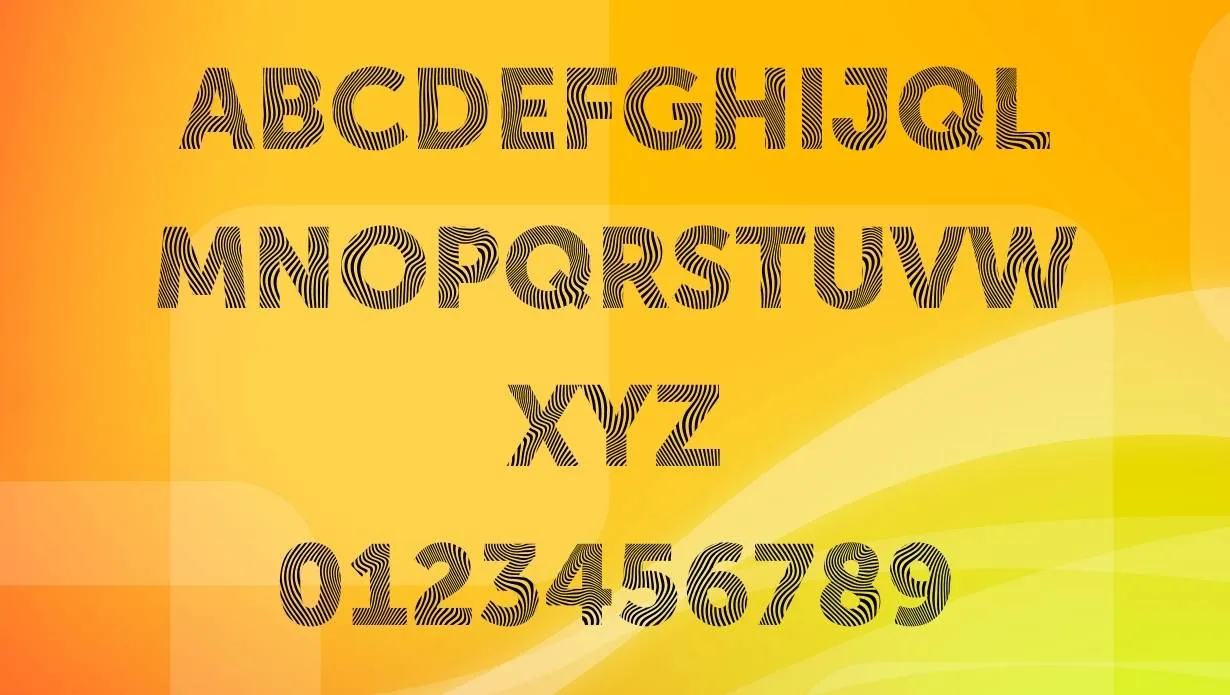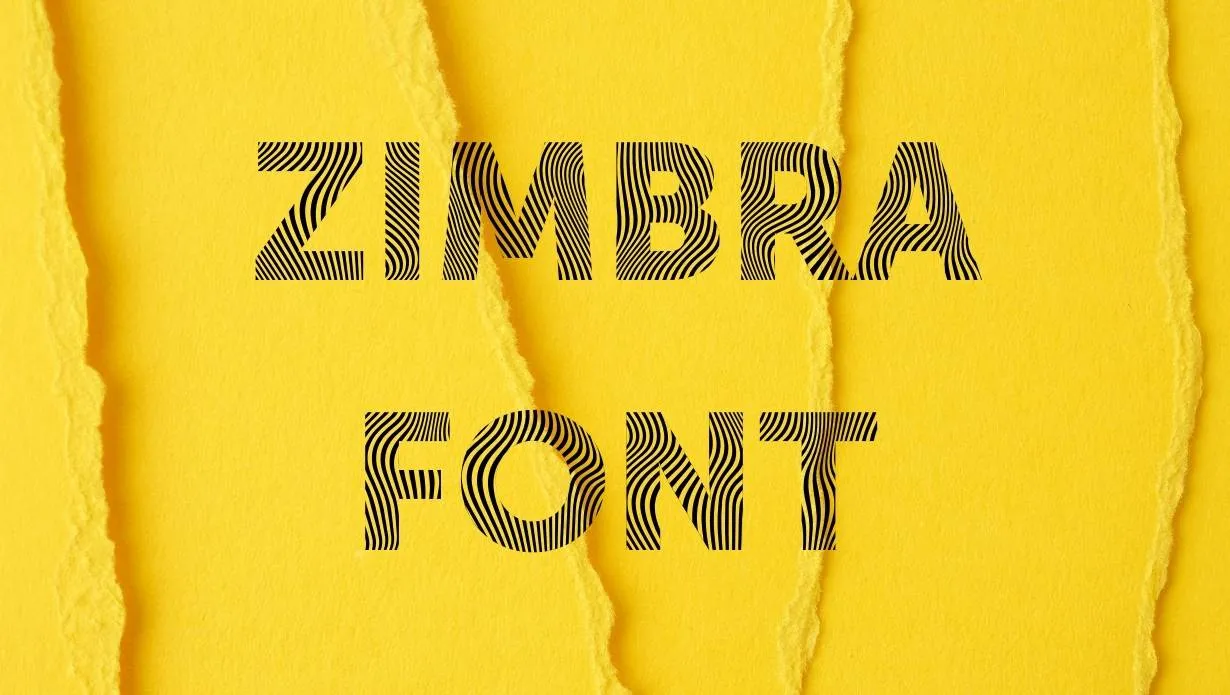
Zimbra Font Free Download is a modern typeface available in multiple variants and styles.
- Zimbra Font Regular
- Zimbra Font Bold
- Zimbra Font Italic